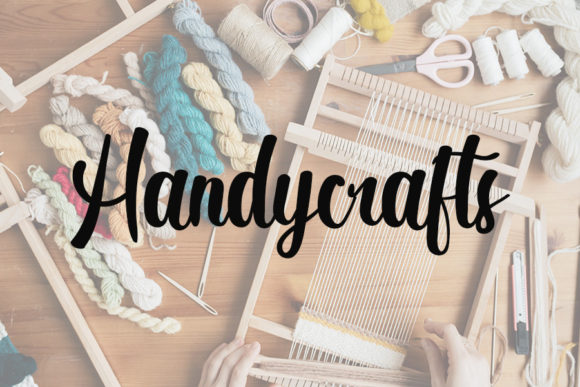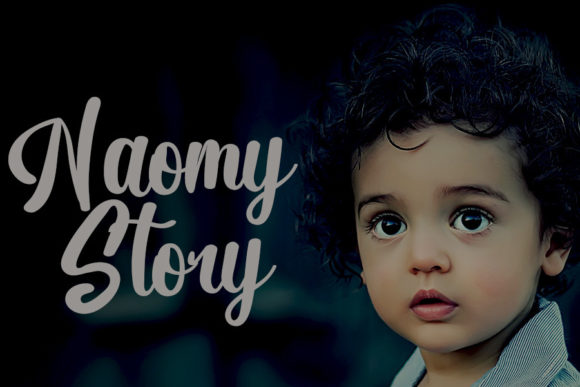
Handmade Product Font
db-ku.com - Script & Handwritten -- Handmade Product is a friendly handwritten font, carefully designed to become a true favorite. It maintains its classy calligraphic influences while feeling contemporary and fresh.